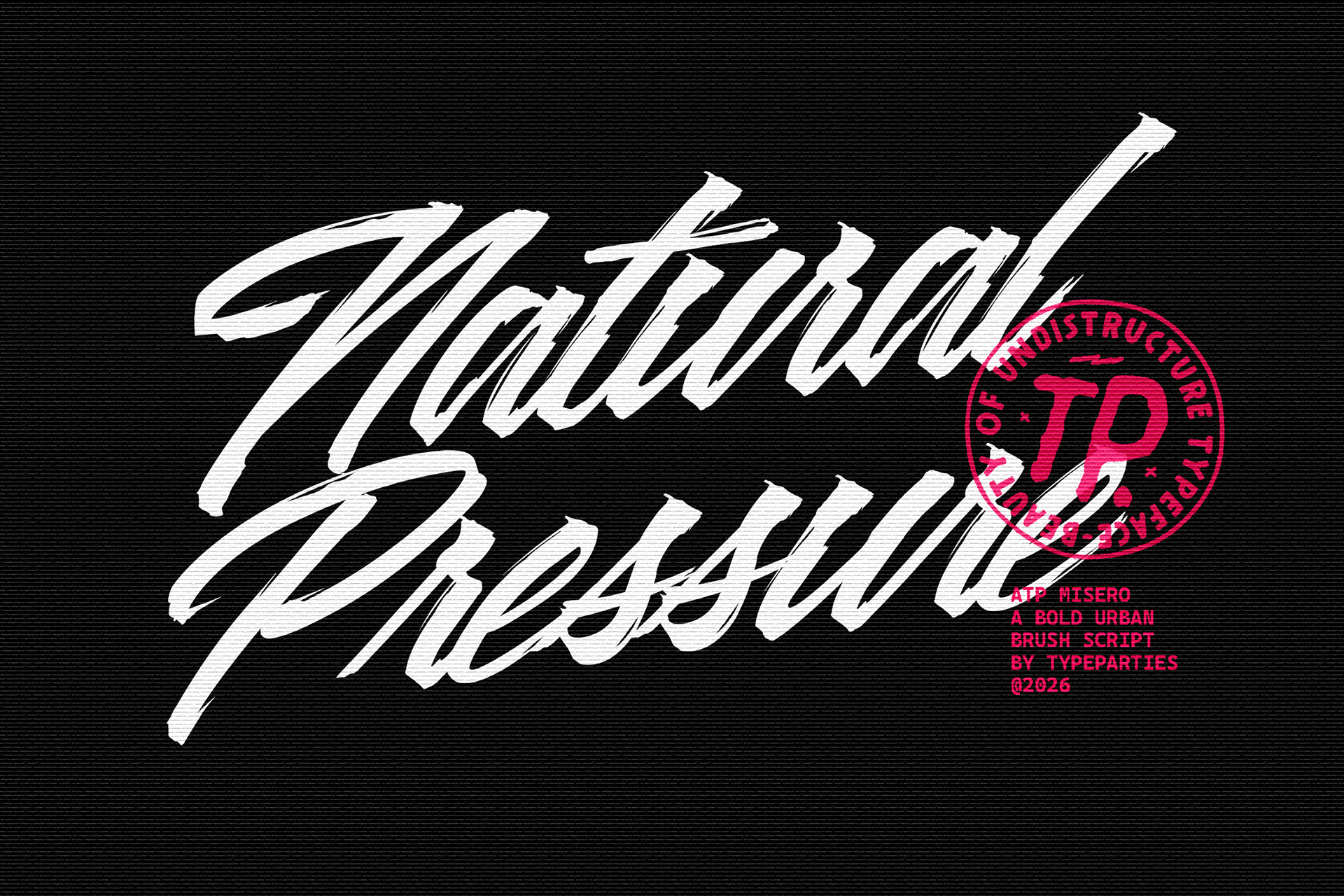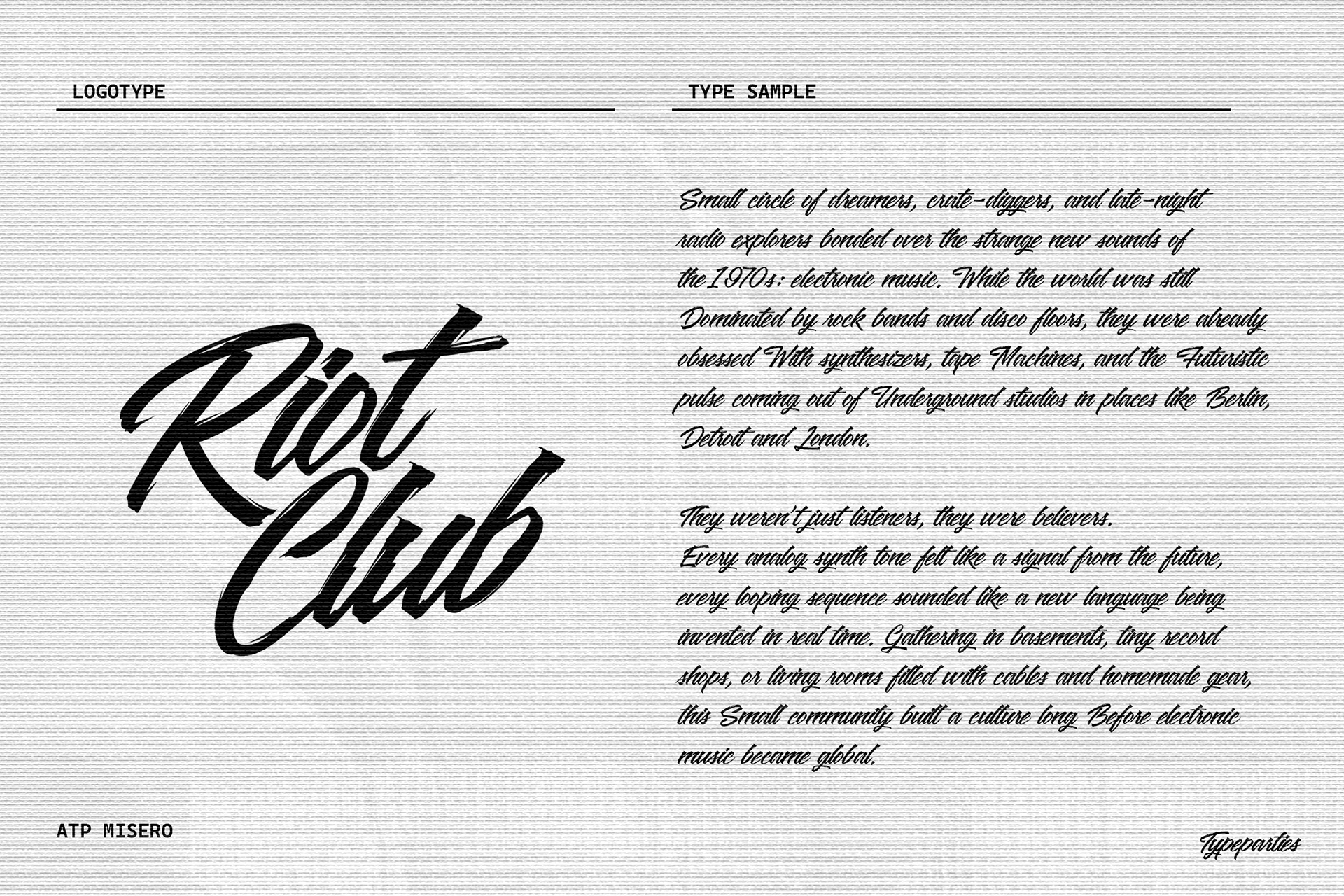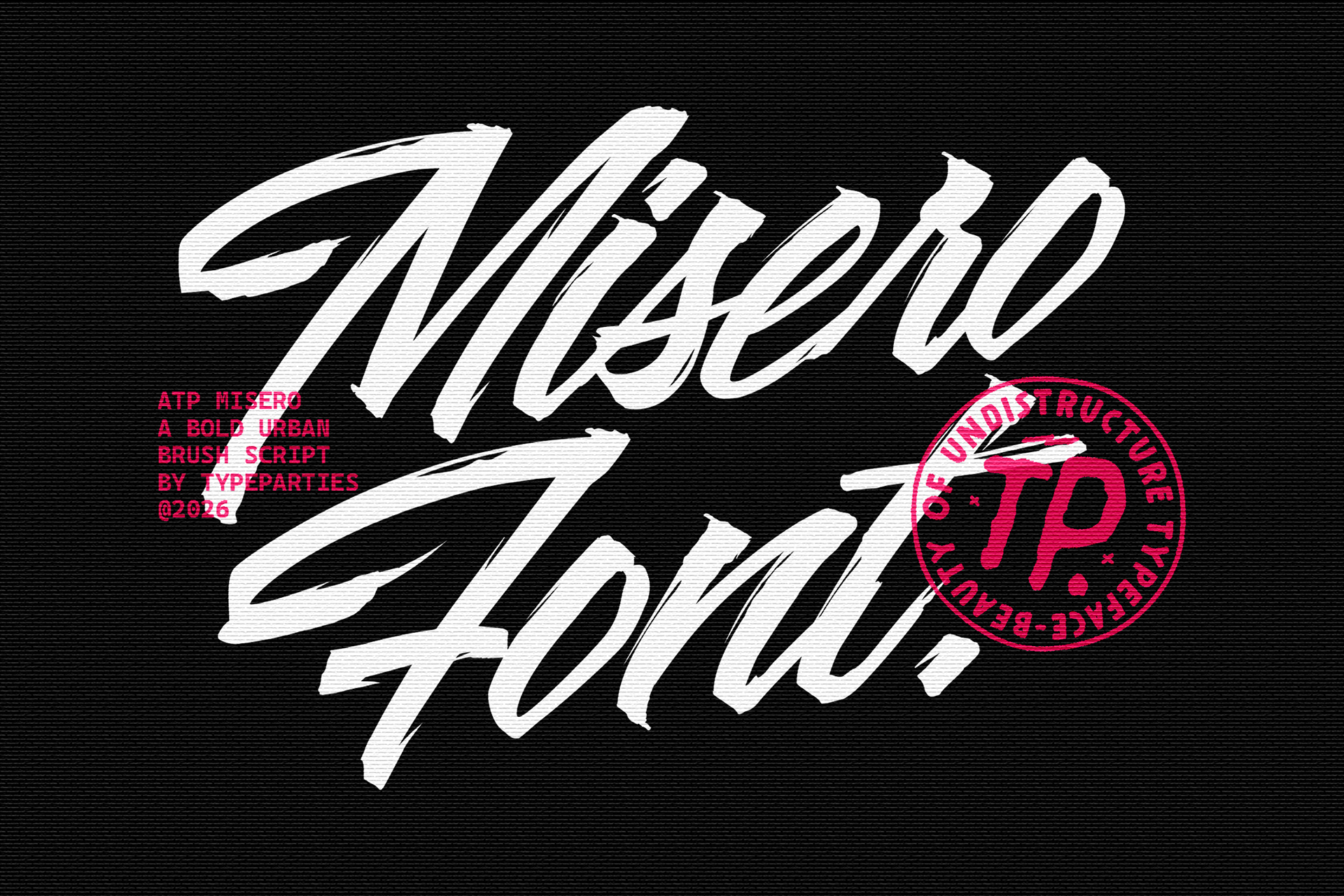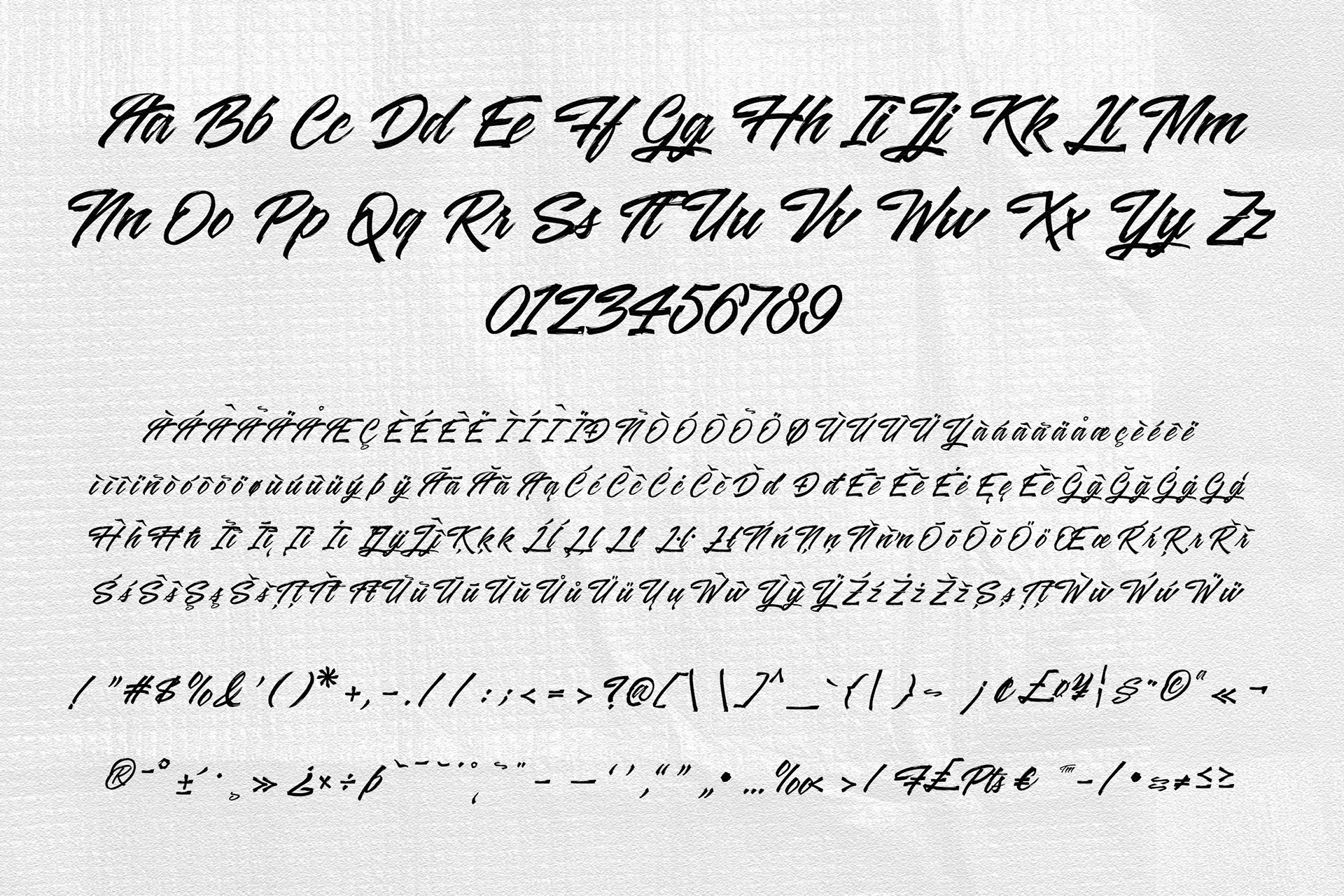
ATP Misero
contemporary brush script typeface developed through the simulation of manual dry-brush stroke behavior, producing organic pressure variation, textured terminals, and dynamic rhythm across each letterform. This structural approach allows the font to maintain visual expressiveness while preserving legibility in large-scale typography applications. As a result, Misero functions effectively as a display brush script font for logos, streetwear branding, poster composition, music visuals, packaging, and social media design.